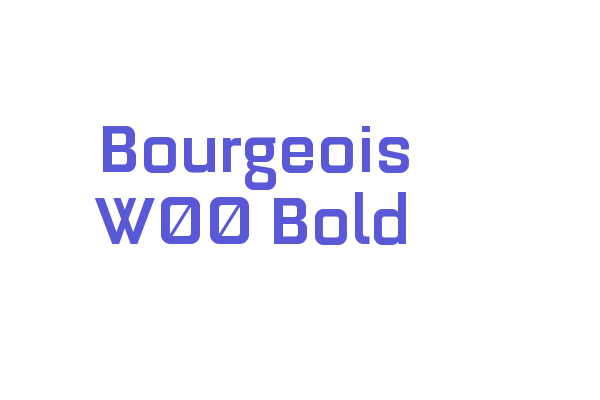
Bourgeois W00 Bold is a modern Basic Sans serif font designed by Jonathan Barnbrook and Marcus McCallion. With its bold and clean style, this font is perfect for creating eye-catching headlines, titles, and logos. Its sleek design makes it ideal for projects that require a contemporary and sophisticated look.
Font Name: Bourgeois W00 Bold
Designer: Jonathan Barnbrook, Marcus McCallion